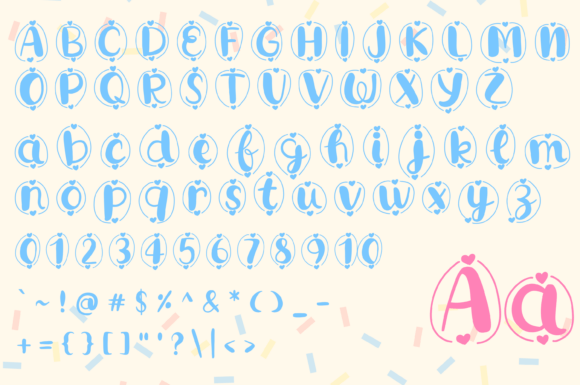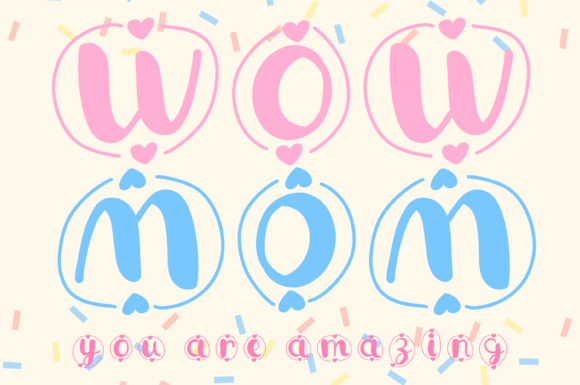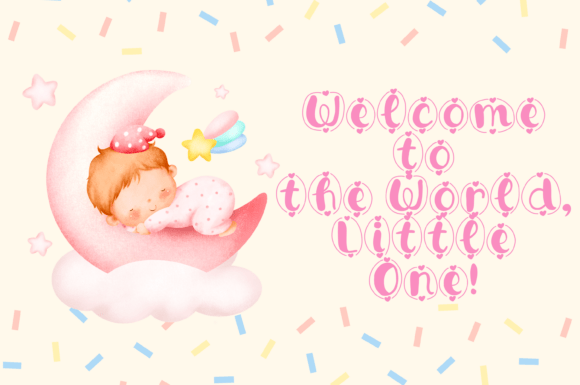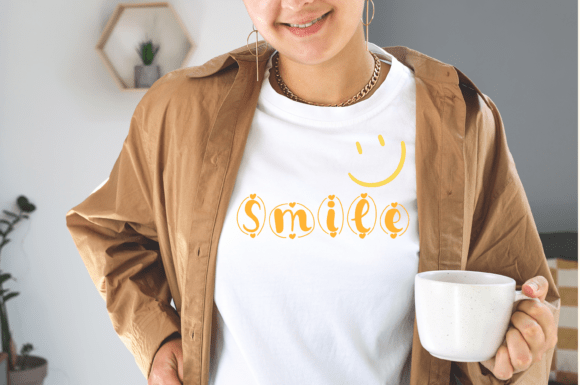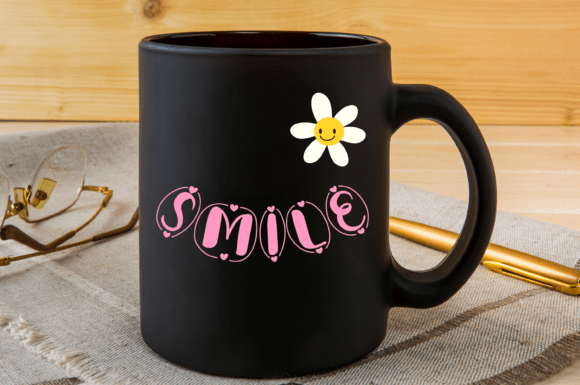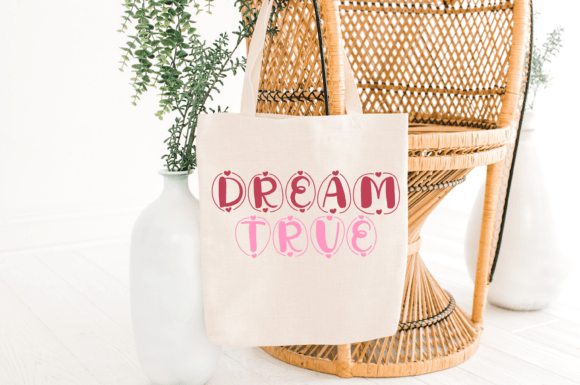
Introduction to Loving Oval Font
Have you ever been scrolling through your social media feeds and stumbled upon a design that instantly puts a smile on your face? Maybe it’s a cute logo, a romantic quote, or a whimsical illustration that makes your heart skip a beat. For designers, those moments of creative delight can be a game-changer. They remind us why we love our job and inspire us to create something truly special. One design element that can evoke that feeling is the Loving Oval Font, a high-quality, decorative font that’s perfect for adding a touch of warmth and joy to any project.
As a valuable design resource, the Loving Oval Font is a must-have for any creative project. Its unique combination of rounded strokes and heart embellishments creates a charming, affectionate style that’s perfect for Valentine’s Day projects, wedding invitations, and more. And the best part? It’s available for free download, making it an instant favorite among designers who crave high-quality, unique design elements.
Key Features of Loving Oval Font
- High-quality design for a creative project, ideal for various applications such as logos, branding, and packaging.
- Features a unique, lovingly crafted oval shape, making it a standout design element for any project.
Honest Review: Loving Oval Font
I recently stumbled upon the Loving Oval Font, and I must say, it’s been a great addition to my design resource library. This high-quality font is perfect for any creative project that requires a touch of elegance and sophistication.
The Loving Oval Font features a unique design that is instantly recognizable. The combination of rounded edges and smooth curves makes it perfect for use on transparent backgrounds, allowing your design to truly shine.
Here are some of the things that work well with this font:
- ✨ Beautifully crafted letterforms that are both elegant and sophisticated
- ✨ Highly legible and easy to read, even at smaller font sizes
- ✨ Perfect for use in creative projects, such as invitations, greeting cards, and more
While the Loving Oval Font is a great resource, there are a few limitations to consider:
- ⚠️ May not be suitable for use in formal or corporate settings due to its playful design
Overall, I’m thoroughly impressed with the Loving Oval Font. It’s a great addition to any designer’s library, and I highly recommend it for any creative project that requires a touch of elegance and sophistication.
Use the Loving Oval Font in conjunction with other design elements, such as shapes and images, to create a visually appealing design. Experiment with different font sizes and colors to add emphasis and create a cohesive look. The Loving Oval Font is a versatile design resource that can be used in a variety of contexts, from social media graphics to presentations and documents.
The Loving Oval Font is commonly used in creative projects, such as social media graphics, presentations, and documents. It is also used in branding and marketing materials, such as business cards and brochures. With its high-quality design and transparent background, the Loving Oval Font is a valuable resource for designers and creatives.